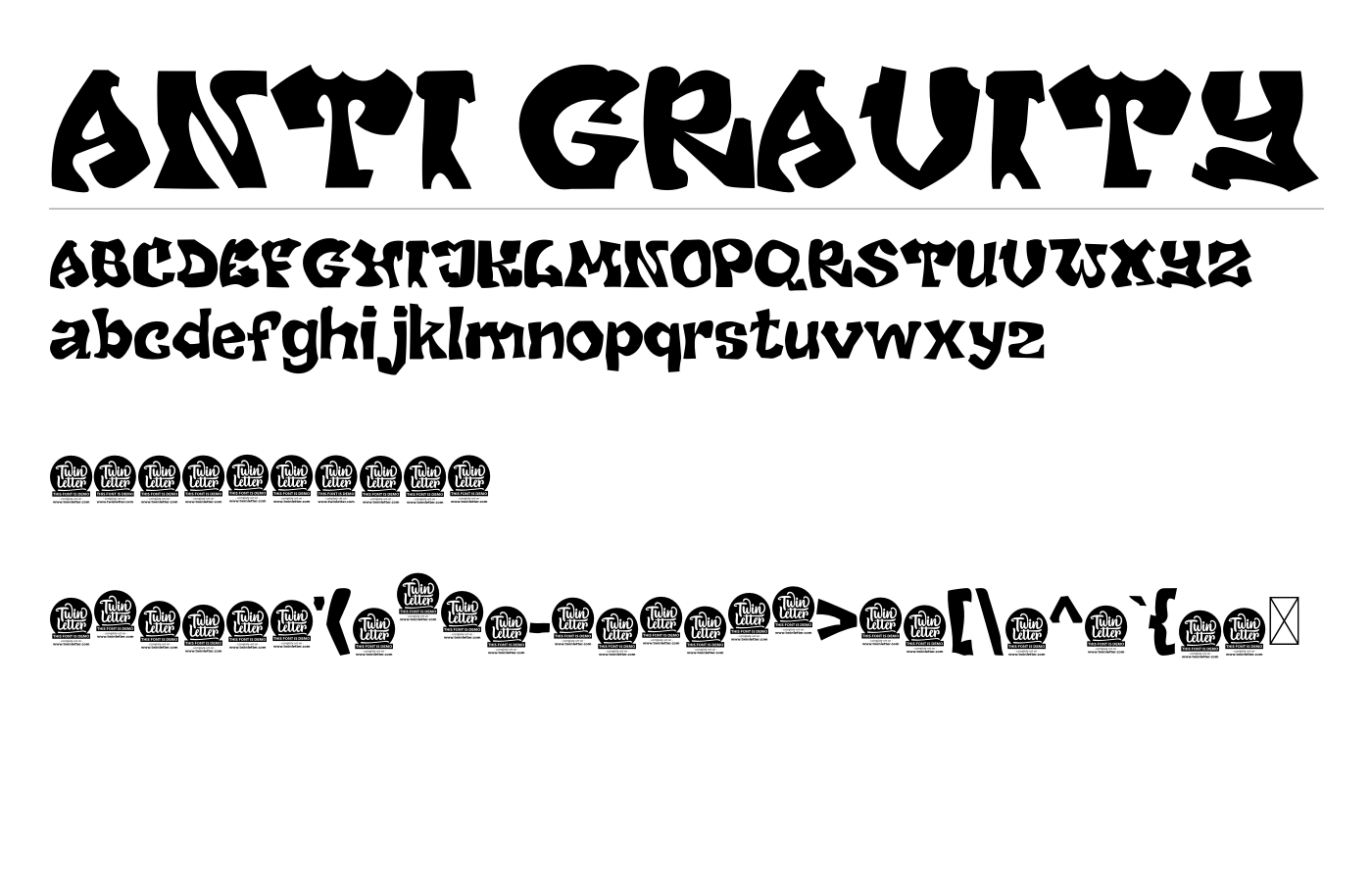
ANTI GRAVITY is a bold, decorative display font with a strong, playful vibe characterized by its chunky, irregular letterforms that suggest movement and energy. Its heavy weight and quirky shapes make it ideal for attention-grabbing headlines, logos, and posters where a fun and unconventional style is desired. This font works best in creative, informal settings seeking a unique and dynamic visual impact.
ANTI GRAVITY Font
About ANTI GRAVITY Font